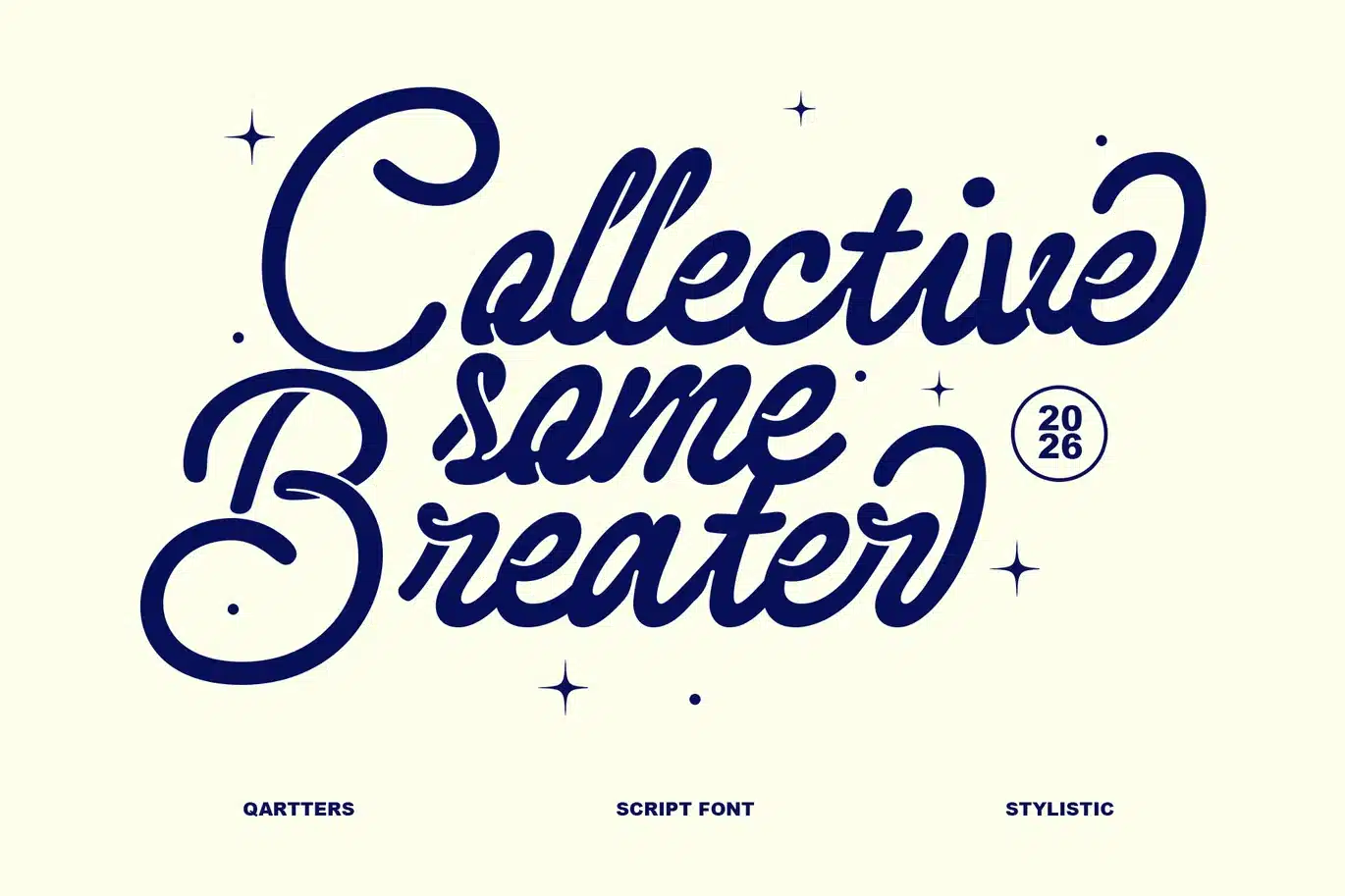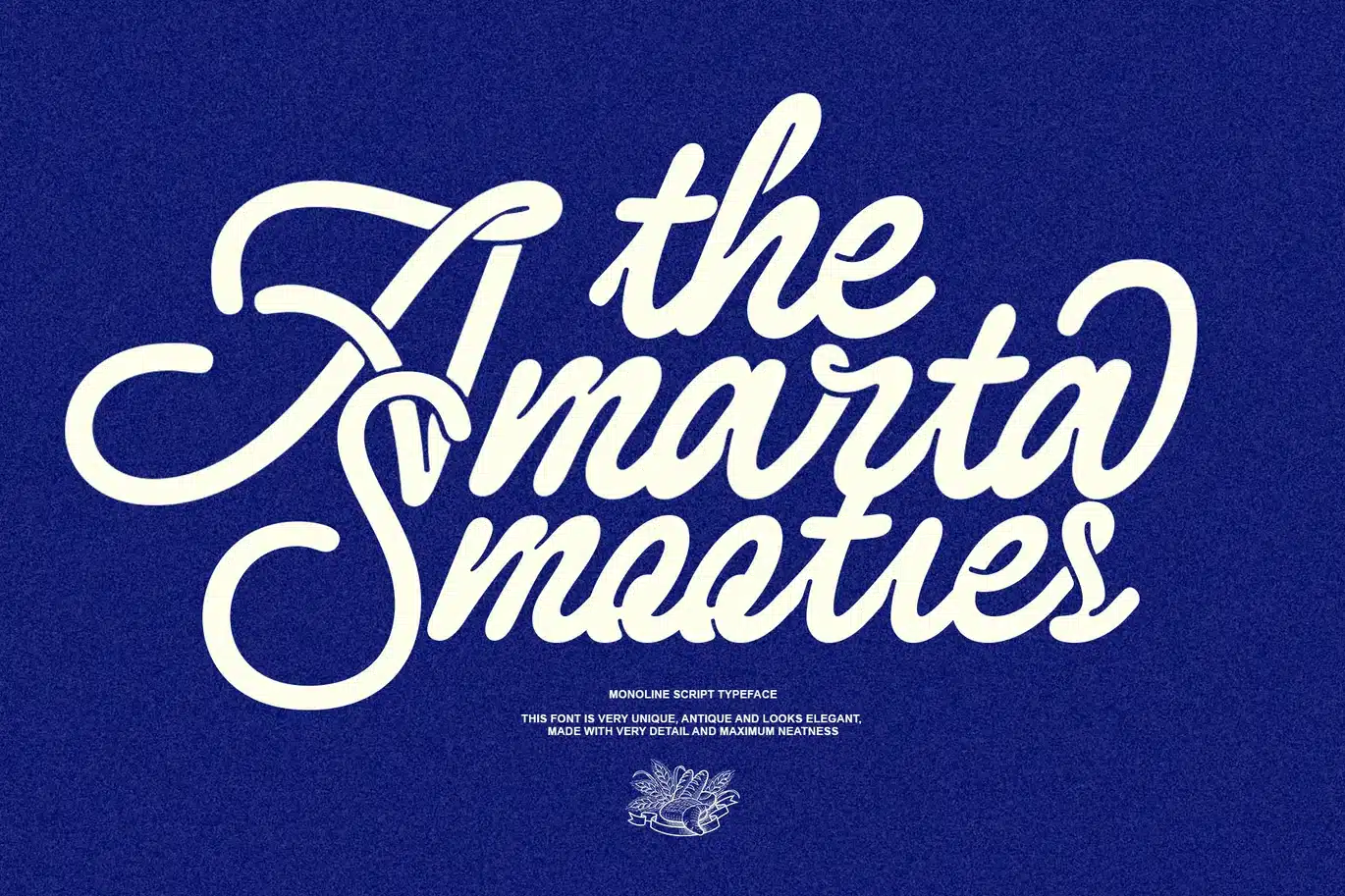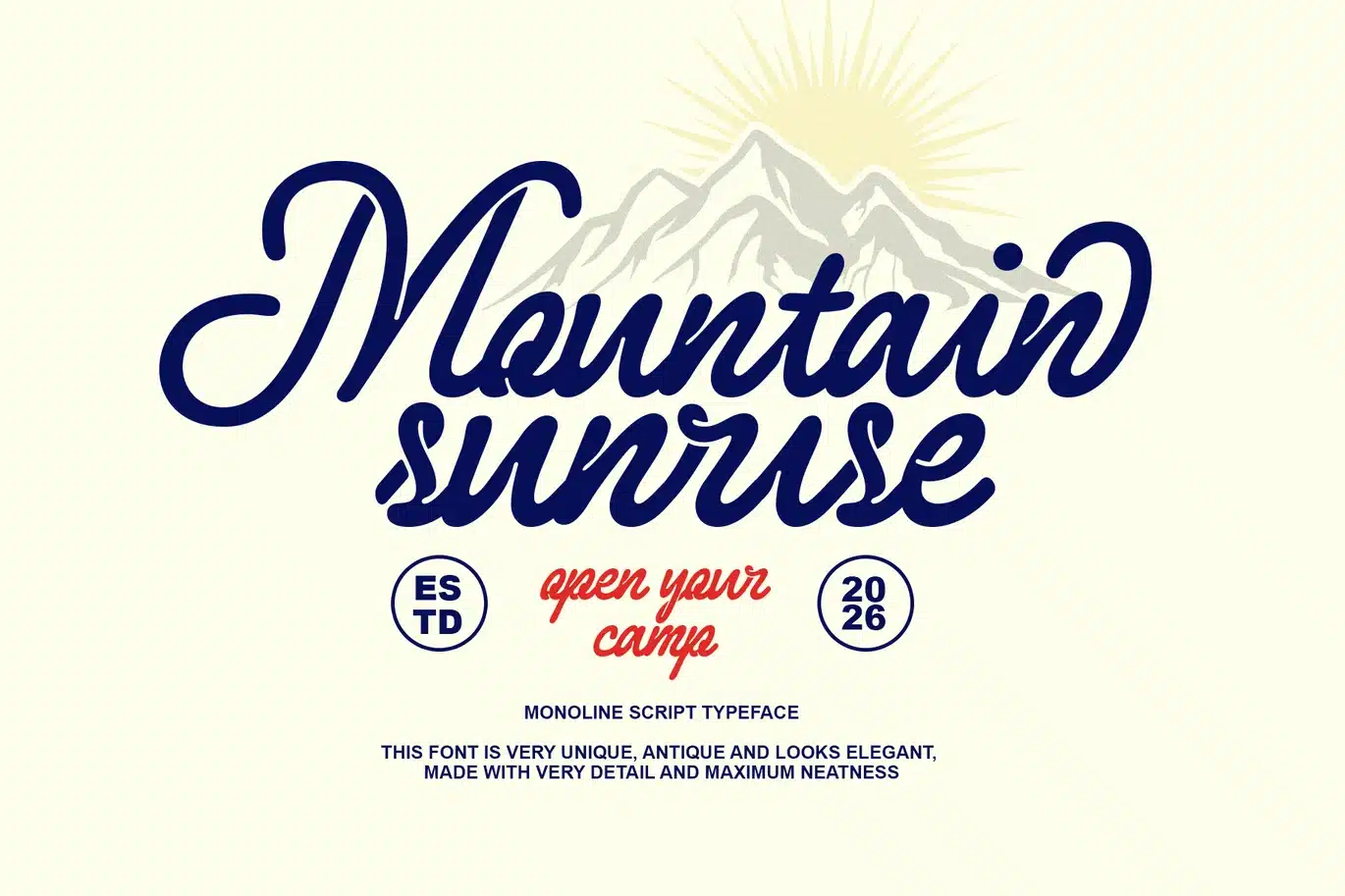
Shina Qatline Font
Shina Qatline is an elegant monoline script font that combines luxury, vintage, and modern script styles into one beautiful typeface. Designed with smooth flowing curves and clean lines, this handwritten script font delivers a classy, stylish, and professional look for any design project.
This elegant script font is perfect for designers who need a signature font, calligraphy font, or cursive font with a strong visual impact. Its refined details and balanced letterforms make it ideal for both digital and print use.
Shina Qatline works perfectly for wedding invitations, branding, logo design, packaging, feminine branding, beauty products, fashion labels, and social media graphics. Whether you are creating a luxury brand identity or a romantic design, this font will elevate your work with a timeless and sophisticated touch.
Key Features
- Elegant monoline script font
- Smooth handwritten and cursive style
- Luxury, classy, and stylish appearance
- Clean, neat, and highly detailed design
- Perfect balance of vintage and modern script
- Easy to use for professional typography
Best For
- Wedding invitation font
- Logo and branding projects
- Packaging and product design
- Beauty and fashion branding
- Social media posts and quotes
- Feminine and luxury design
Why Choose This Font
If you are looking for a script font, elegant script, signature font, or luxury handwritten font, Shina Qatline is the perfect choice. It is designed to help your projects stand out with smooth curves, stylish strokes, and a premium feel that attracts attention and enhances visual appeal.